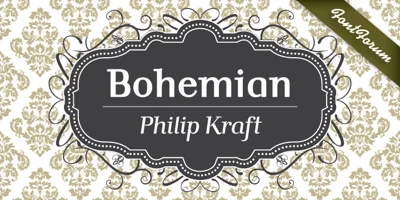
Bohemian Font
Bohemian Font is perfect for artistic festival posters, creative studio branding, bohemian fashion labels, indie music album covers, artisan craft packaging, free-spirited travel blogs, alternative lifestyle magazines, creative workspace signage, artistic jewelry branding, and unconventional design projects that require free-flowing creativity and artistic nonconformity.
This font is exciting because it embodies the liberated spirit and artistic freedom of bohemian culture with expressive letterforms that dance with creative independence and unconventional beauty, celebrating the artistic soul and free-thinking mindset that defines true bohemian expression. Bohemian Font features organic curves and artistic irregularities that reflect the spontaneous creativity and passionate artistry essential to bohemian lifestyle and alternative artistic movements.
Bohemian Font family includes Regular, Bold, Light, Artistic, Free-flowing, Creative, Expressive, and Alternative versions, plus artistic symbols, creative ornaments, bohemian motifs, and free-spirited flourishes that enhance the authentic artistic aesthetic and provide comprehensive design solutions for creative and alternative lifestyle applications.
For artistic and alternative lifestyle design projects, Bohemian Font delivers unmatched creative expression and artistic authenticity. The font's expressive letterforms and bohemian character make it perfect for artists, creative studios, and alternative brands seeking to communicate artistic freedom, creativity, and unconventional beauty. Its free-spirited design appeals to creative individuals who value artistic expression and independent thinking. The character set includes artistic alternates and creative variations that enhance the bohemian artistic experience. Professional designers appreciate its ability to convey both artistic authenticity and creative sophistication while maintaining excellent readability across artistic branding, creative publications, and alternative lifestyle marketing materials, making it essential for brands that want to capture the free-spirited essence of bohemian culture and communicate the artistic passion and creative independence that defines authentic bohemian expression and alternative artistic movements.